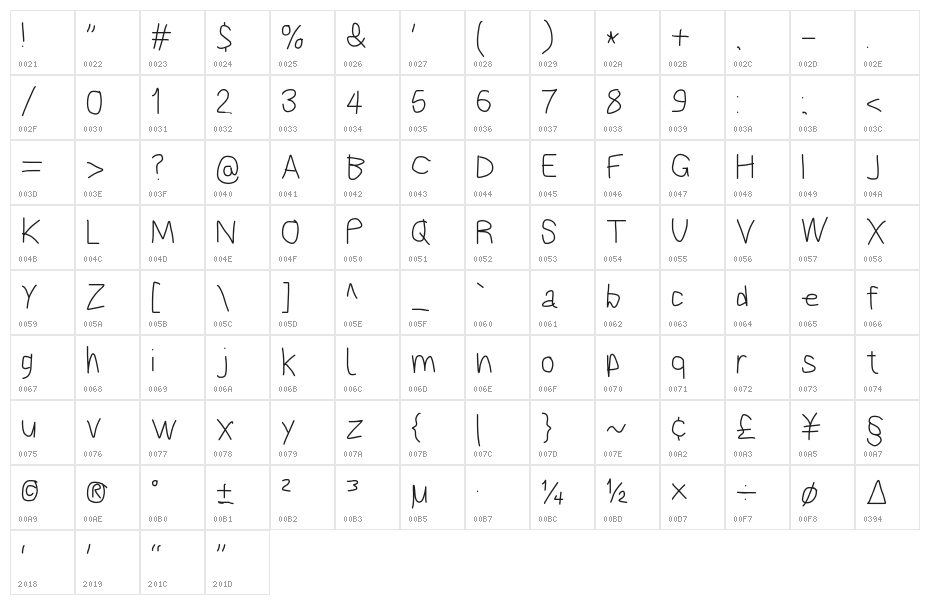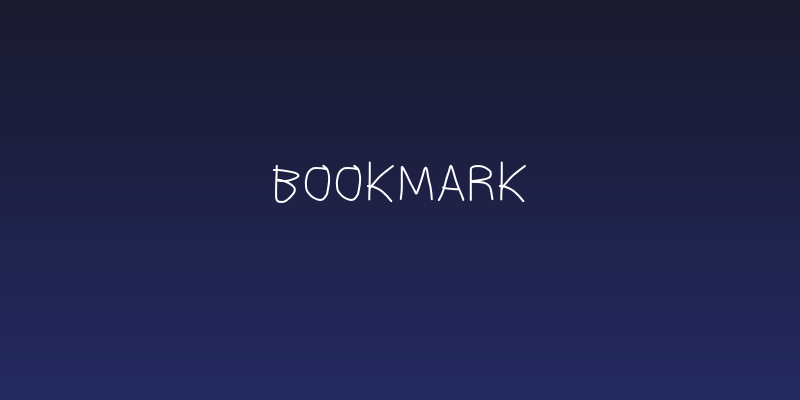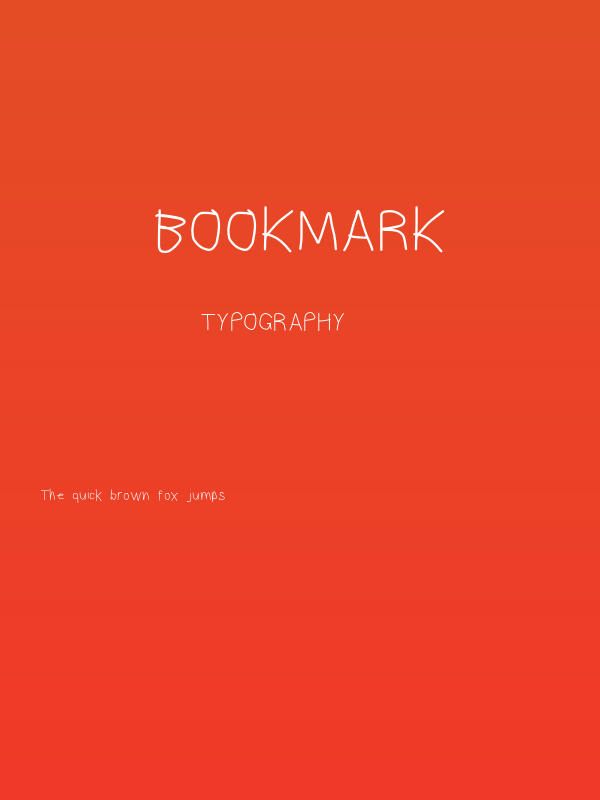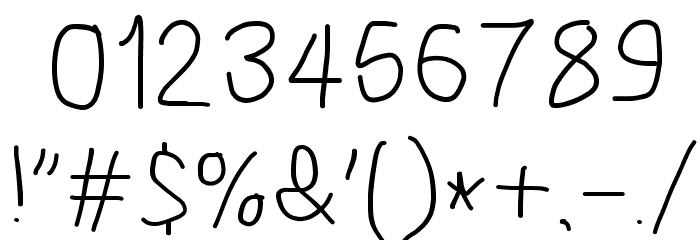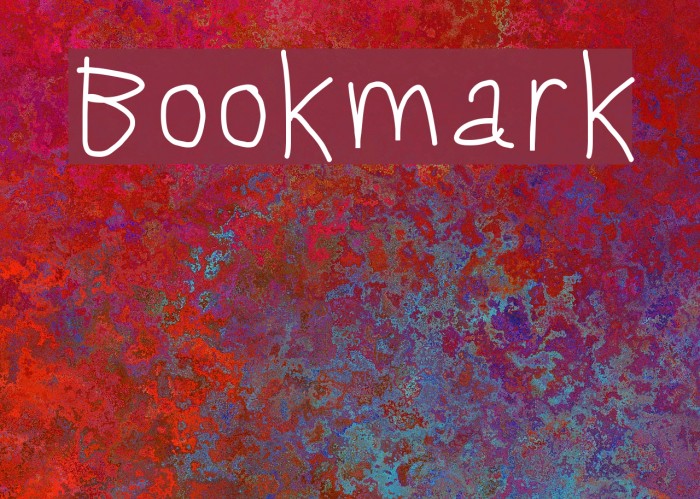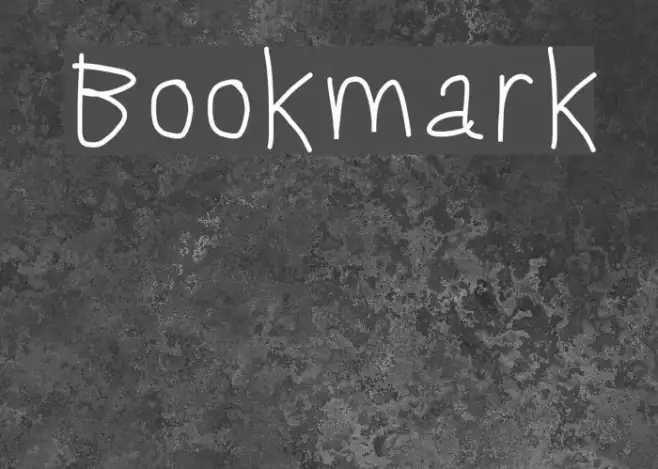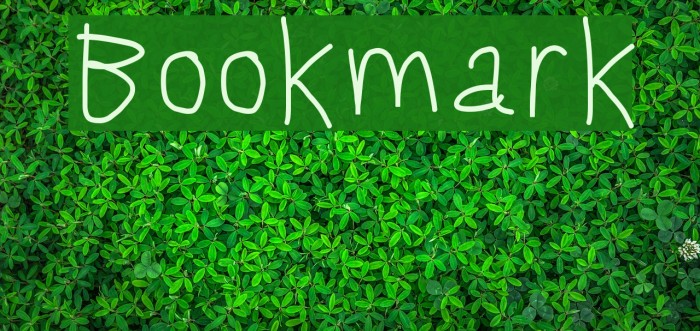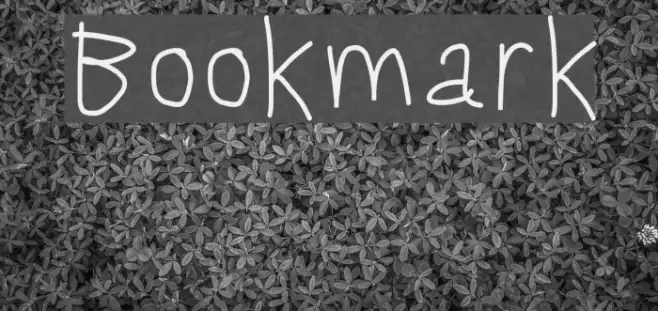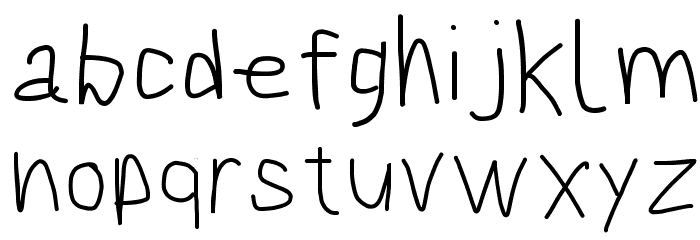
Bookmark Font
Bookmark Description
This font features a playful and casual handwritten style, characterized by its irregular and organic strokes. The letters are slightly tilted, giving a dynamic and informal appearance. The uppercase and lowercase letters maintain a consistent flow, with rounded edges that enhance its approachable feel. The numerals and special characters follow the same whimsical design, making it suitable for projects that require a personal touch. The overall aesthetic is reminiscent of a friendly note or a casual doodle, perfect for conveying warmth and creativity.